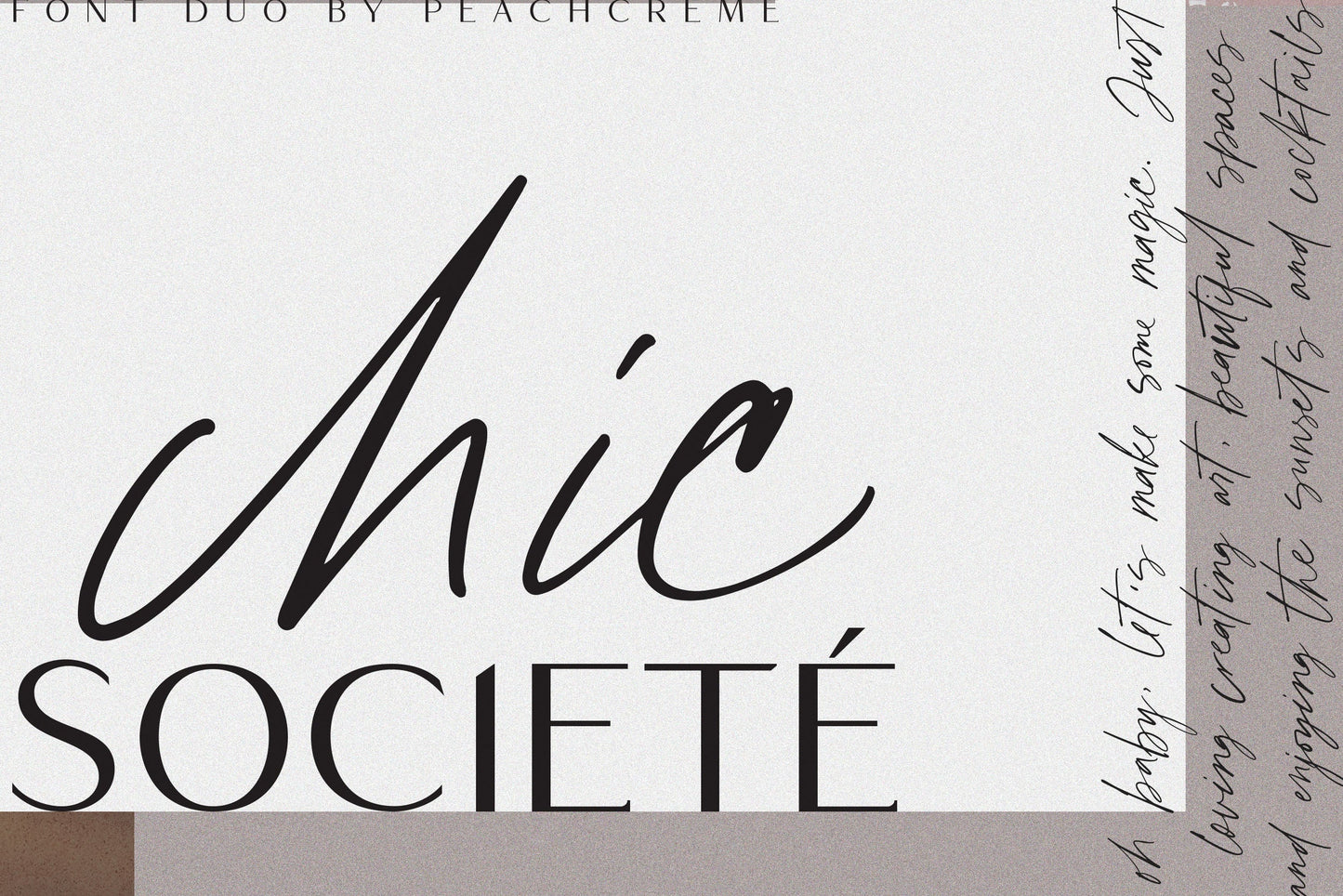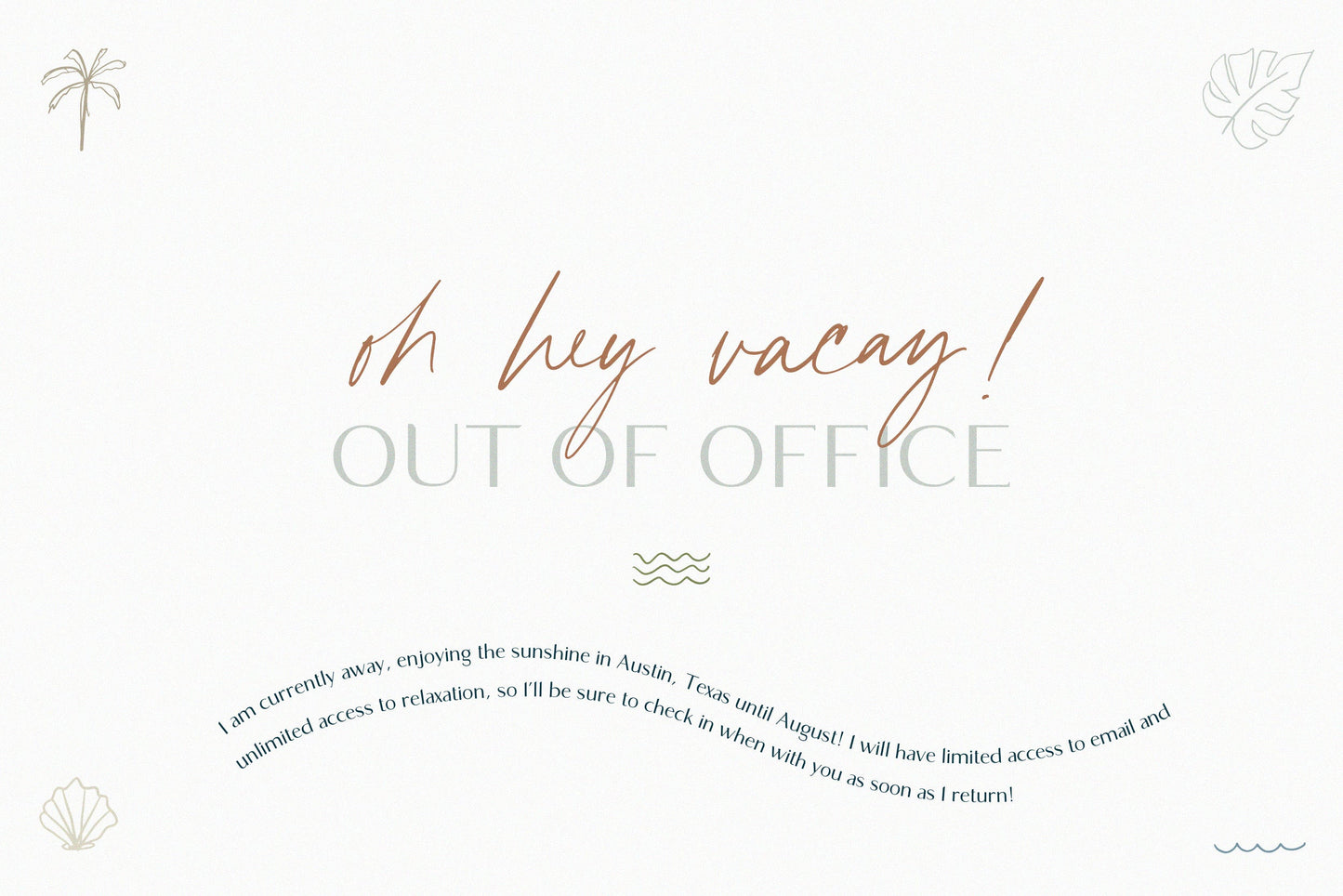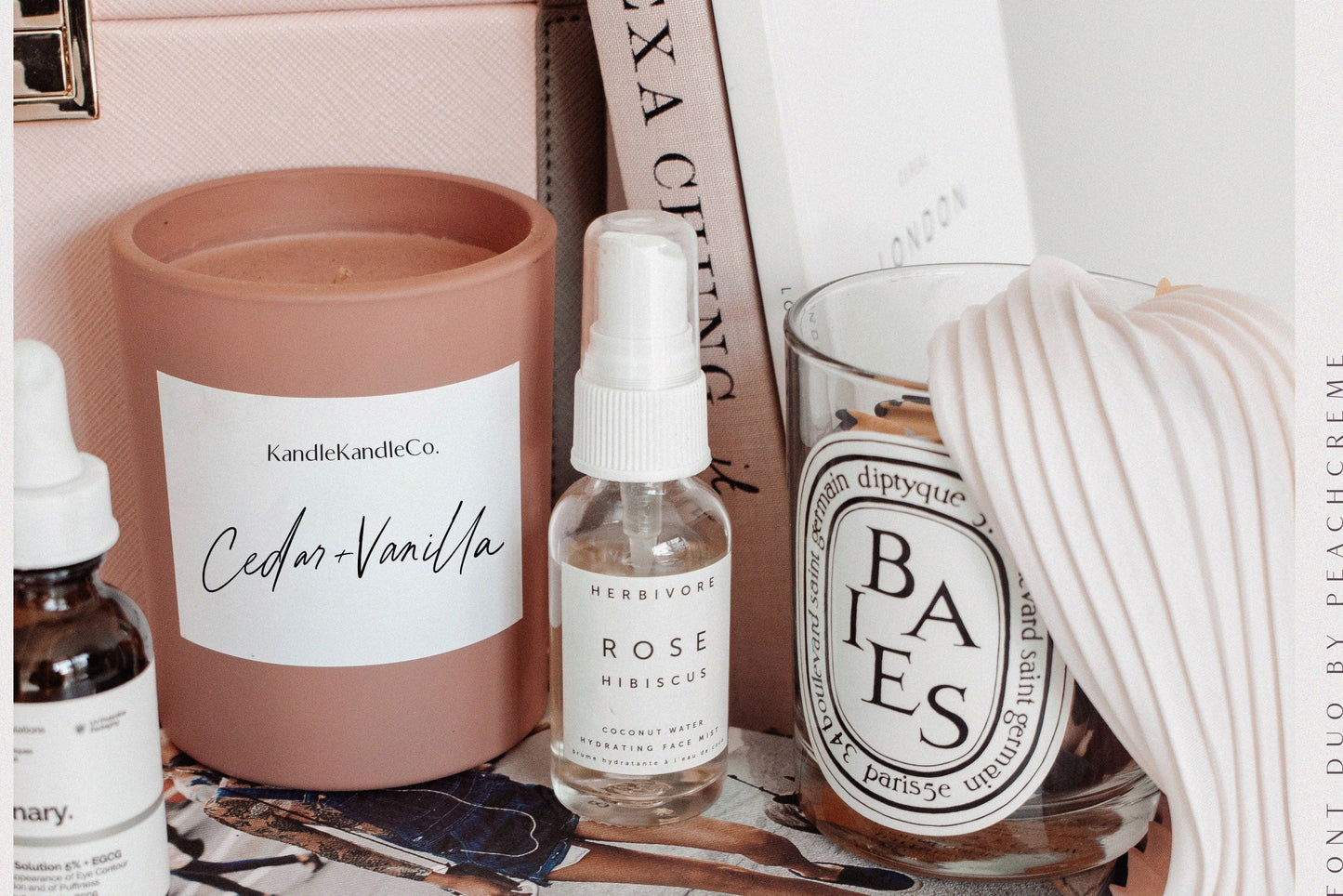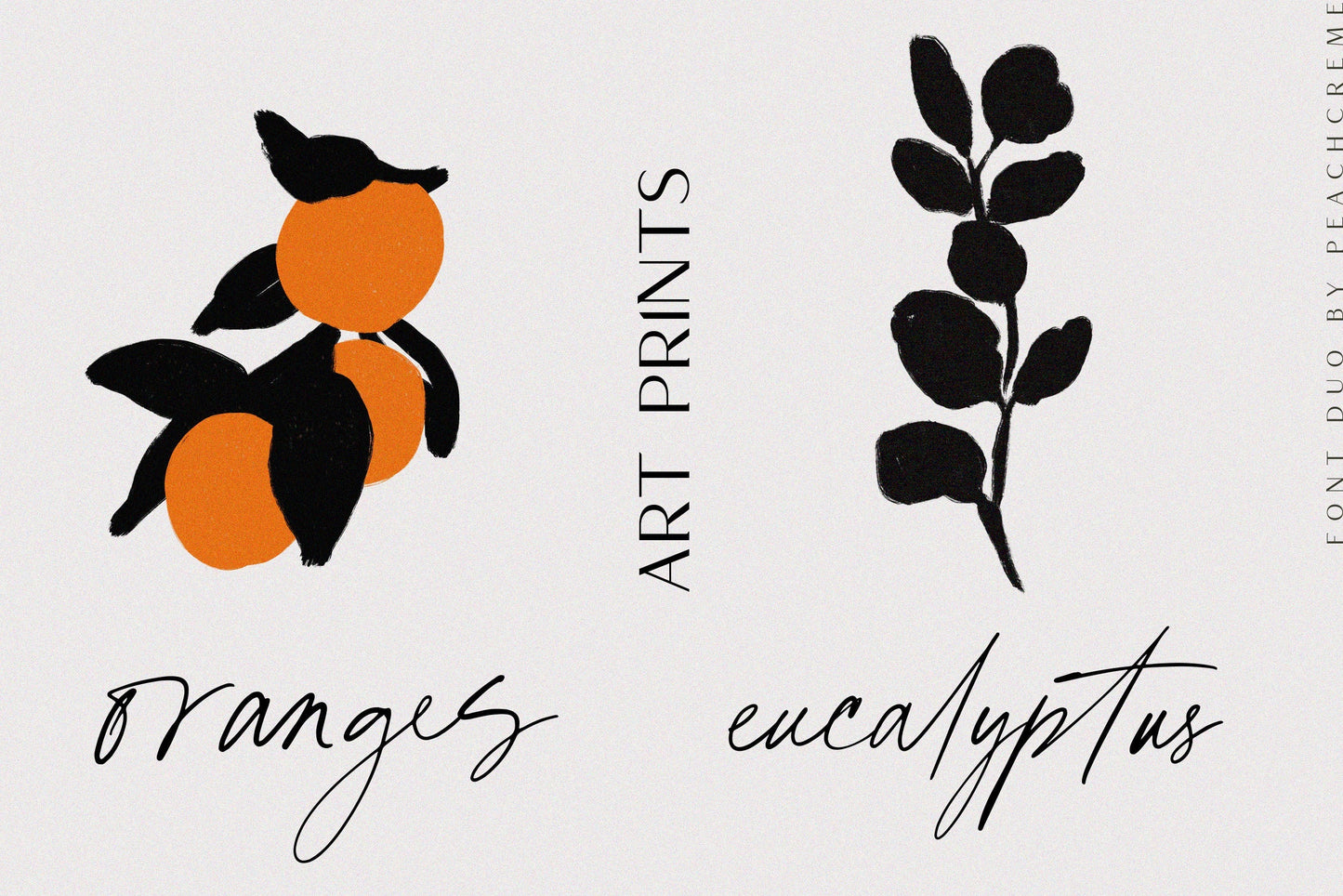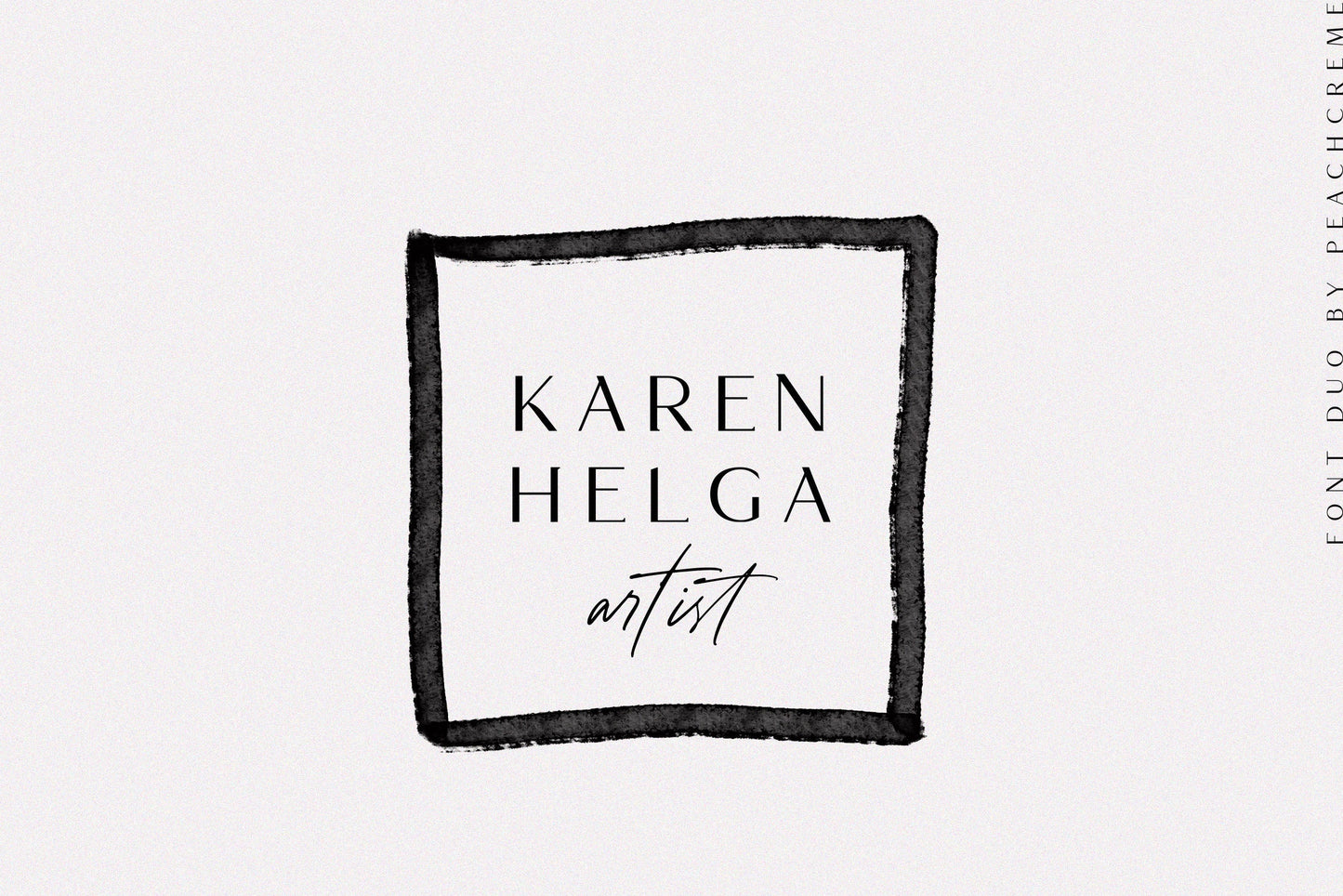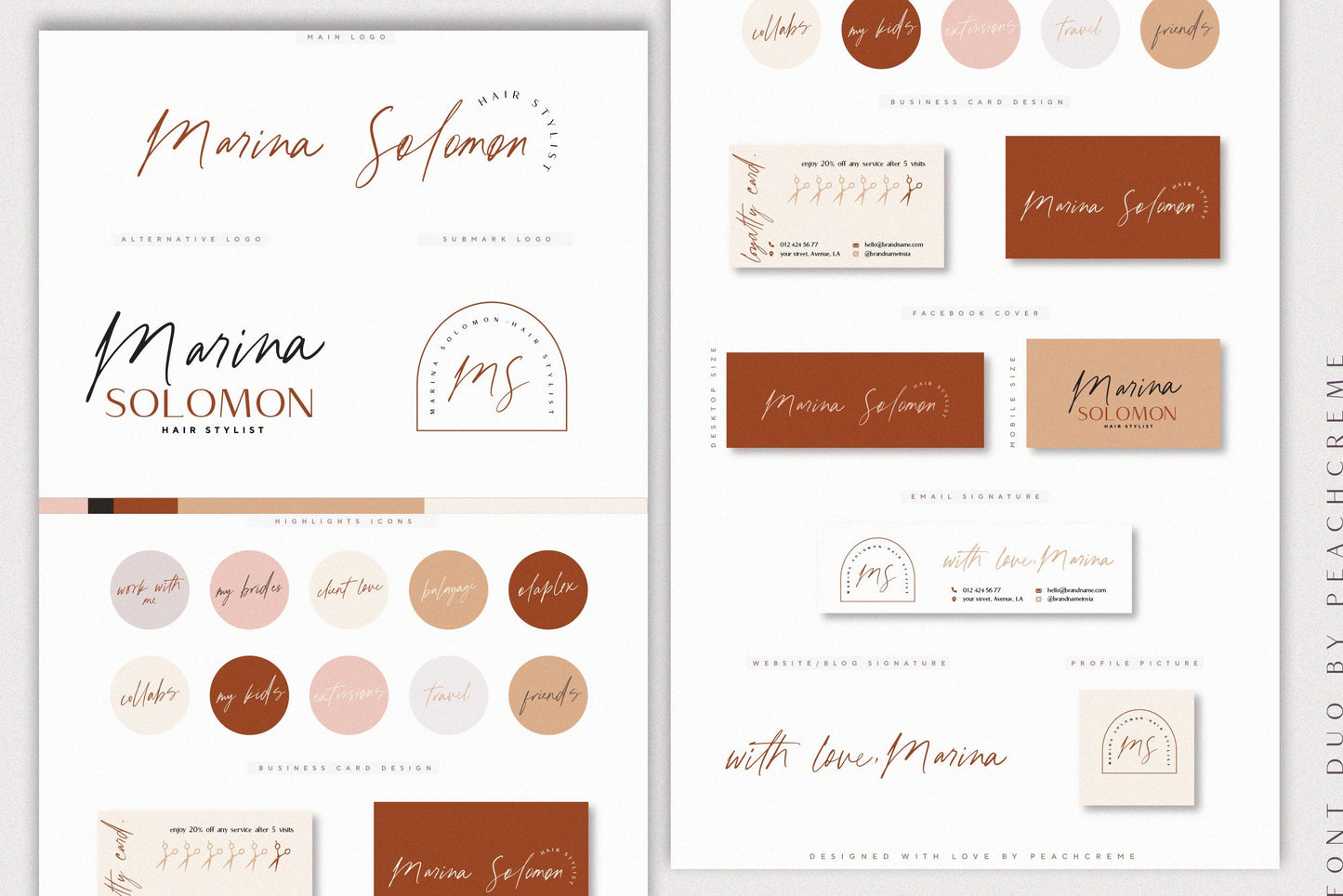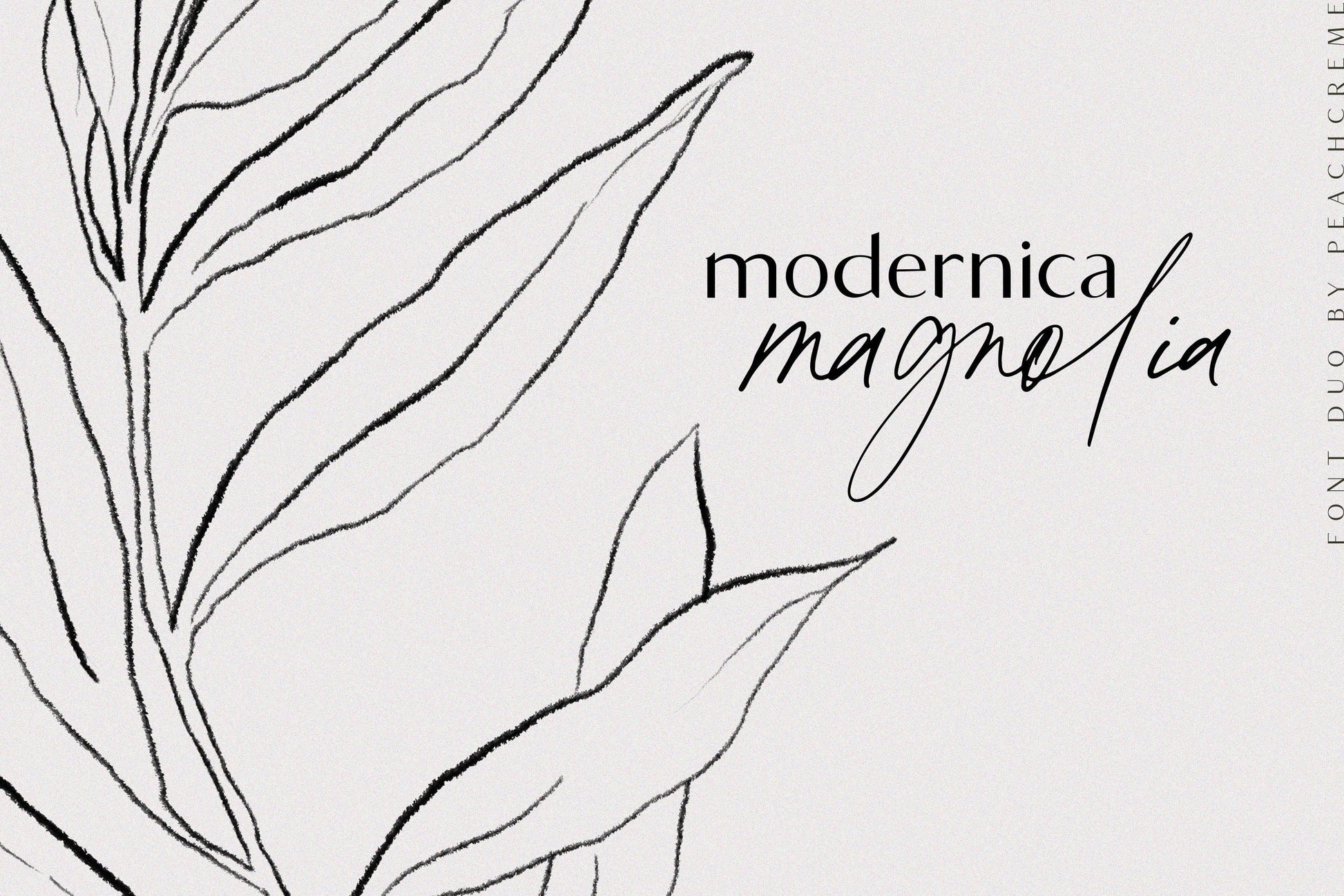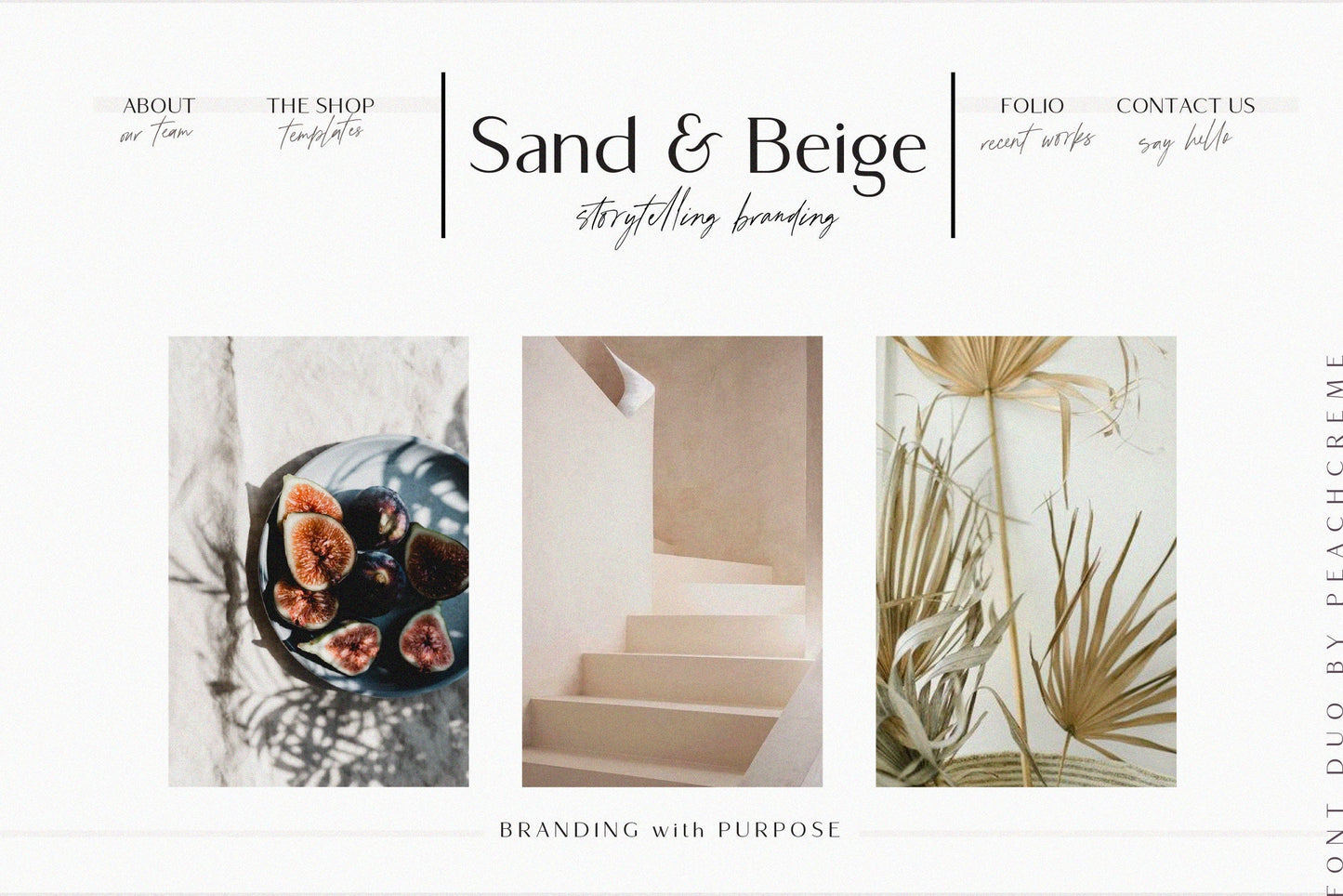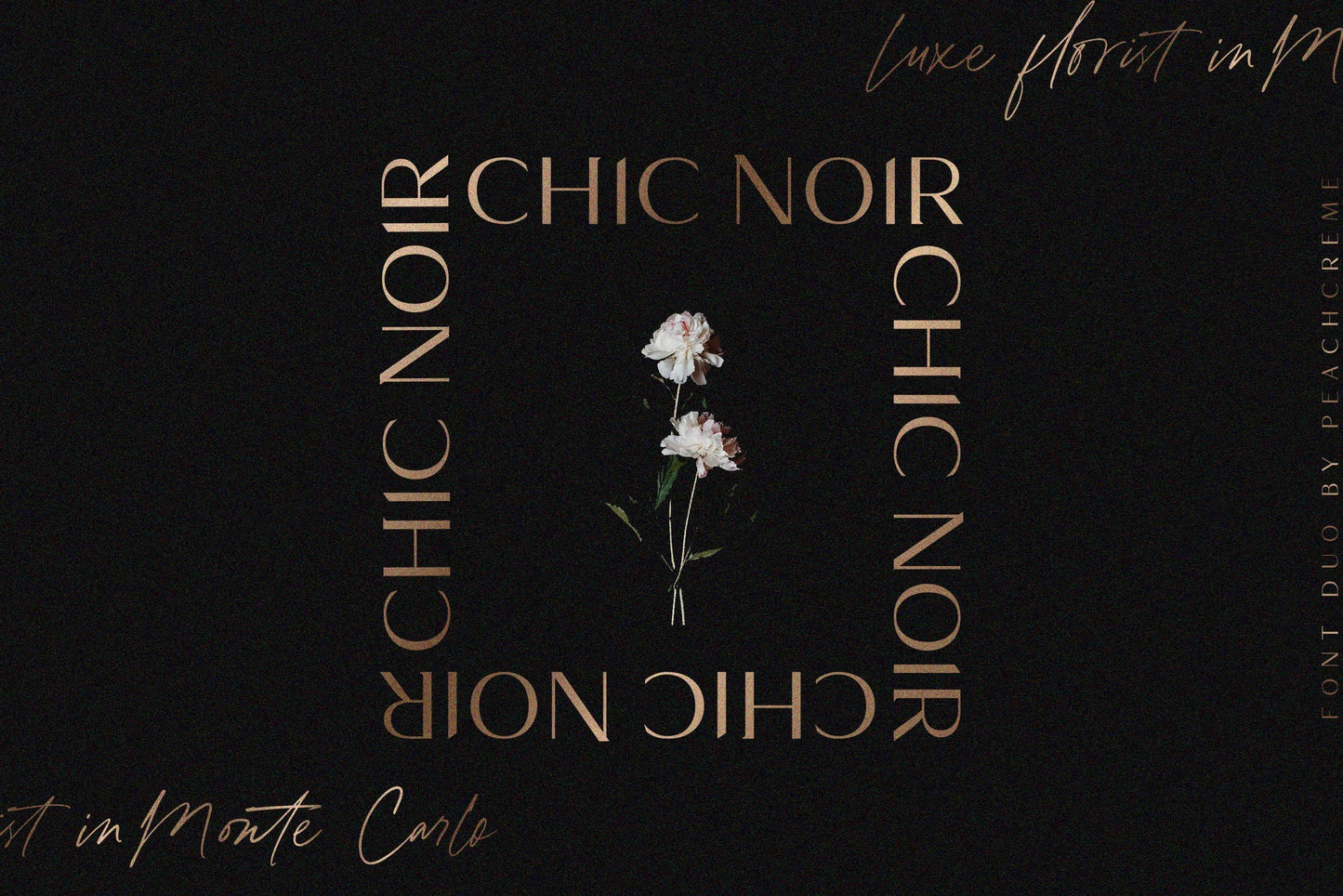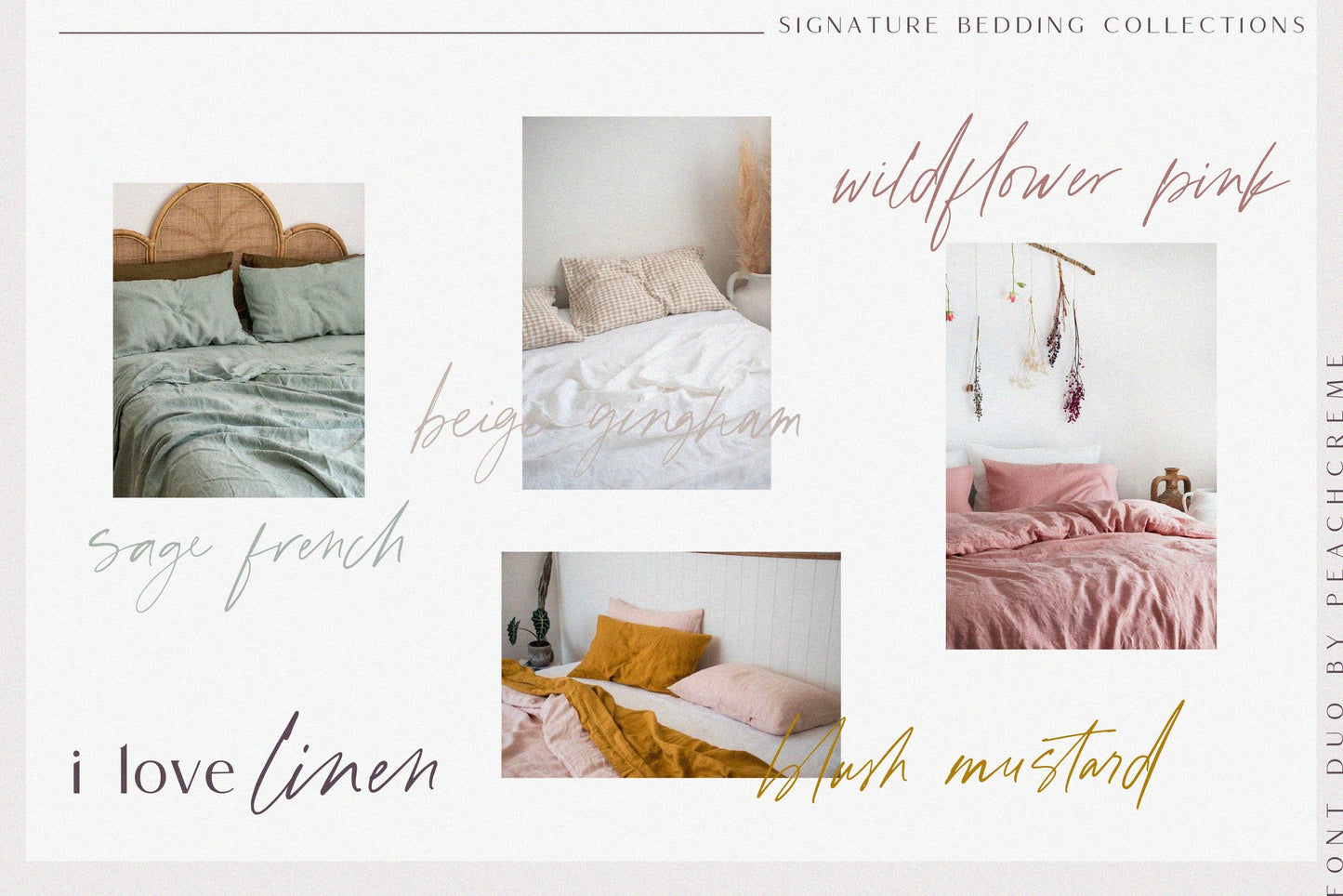
Chic Societe Font Duo
CHIC SOCIETE// FONT DUO
Chic société Font duo is my first DUO font. I regret not creating serif/sans serif fonts earlier. It was a pure pleasure making it. The script font was inspired by recent trendy "instagrammy" posts written by hand.
Script font has 145 ligatures.